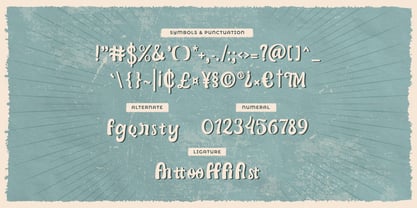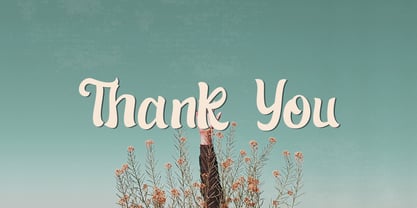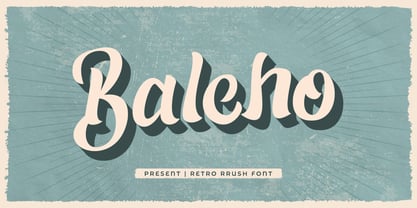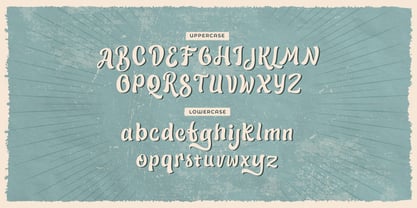
Baleho
by Typefactory
The Baleho Font Family was designed by Hilmius Akbar and published by Typefactory. Baleho contains 1 styles.
Introducing, Baleho. A retro brush font which will bring you back to 70s feel.
Baleho feels playfully nostalgic and delivers an incredible vintage aesthetic.
Use this display font to add that special retro touch to any design idea you can think of!
Features:
- Uppercase
- Lowercase
- Symbols & Punctuation
- Numeral
- Ligature
- Alternate
- Multilingual Support
Designers: Hilmius Akbar
Publisher: Typefactory
Foundry: Typefactory
Design Owner: Typefactory